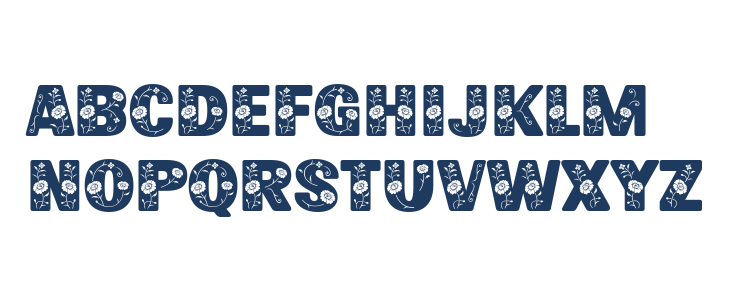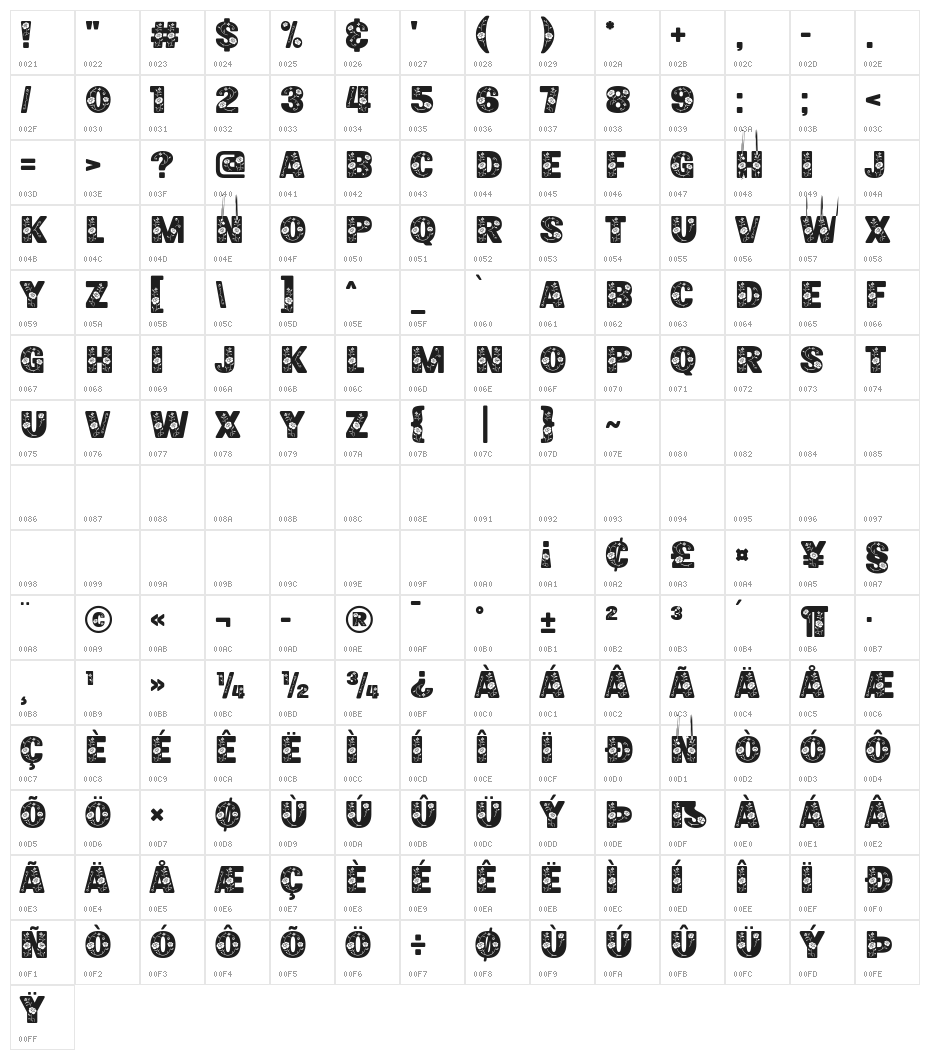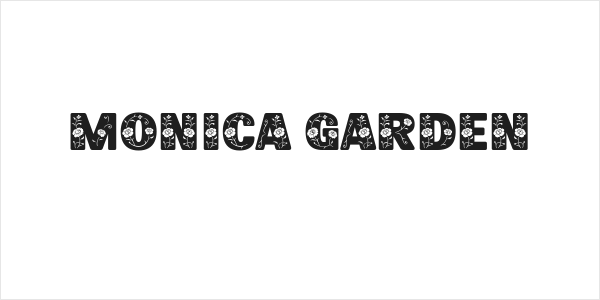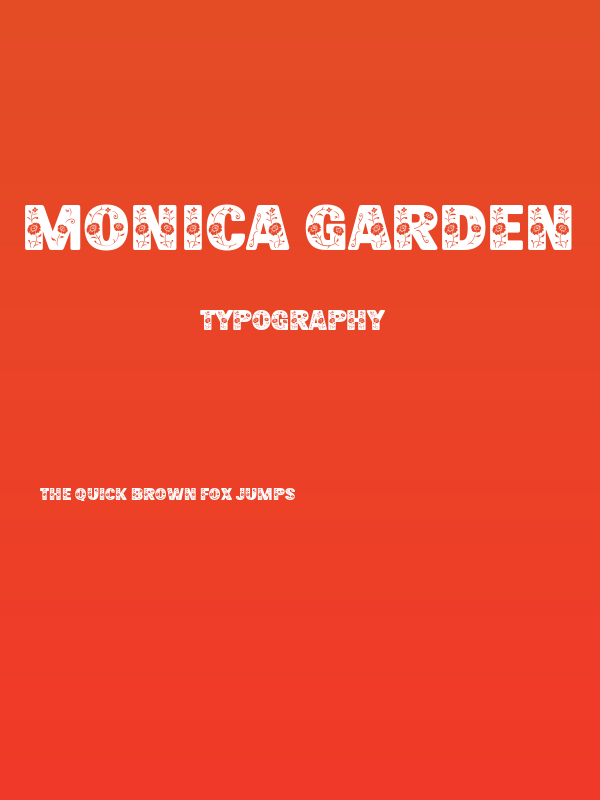
Monica Garden Font
Monica Garden Description
A bold, blocky display font with a floral decorative pattern inside each character, featuring white flower illustrations on a solid black background. All uppercase and numbers are included, with consistent floral motifs throughout. The characters are wide and have a playful, ornamental feel.
| Overall Style | Decorative, Playful, Ornamental |
| Use Case | Headlines, Posters, Logos, Invitations |
| Proposed Projects | Event invitations, greeting cards, posters, branding for florists, spring or garden-themed promotions. |